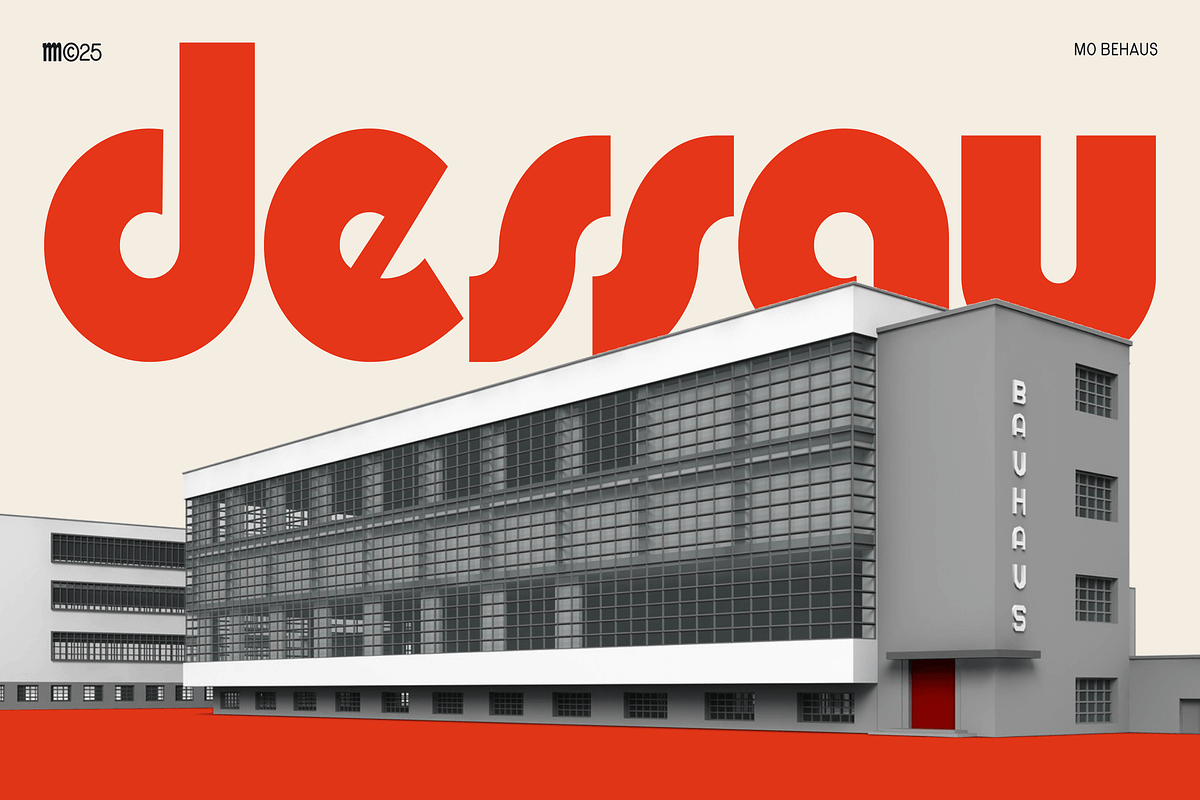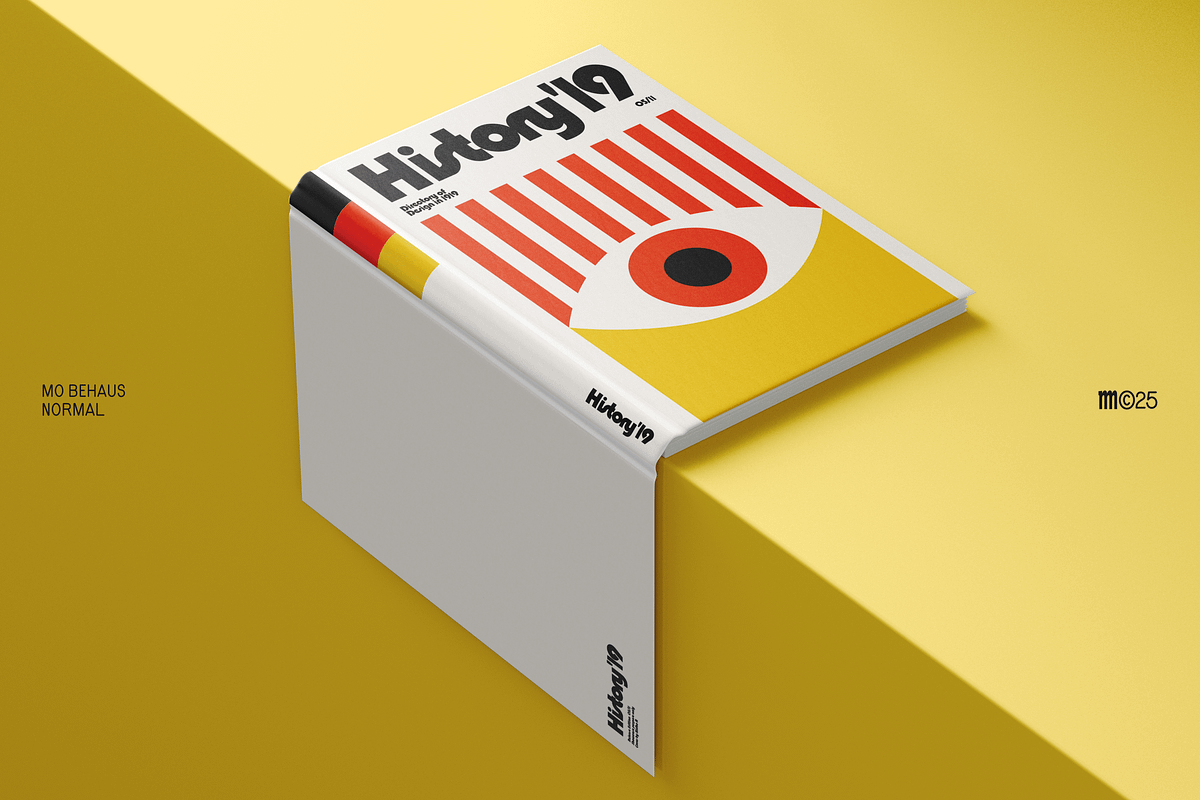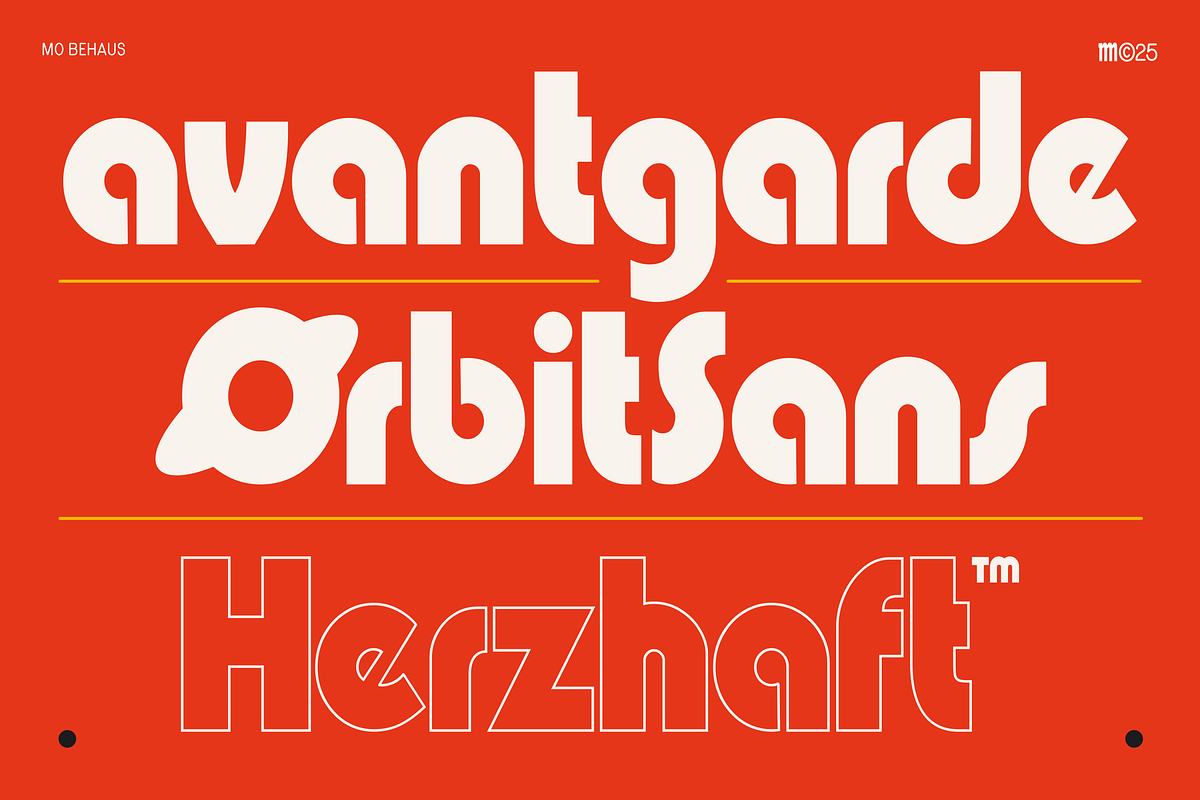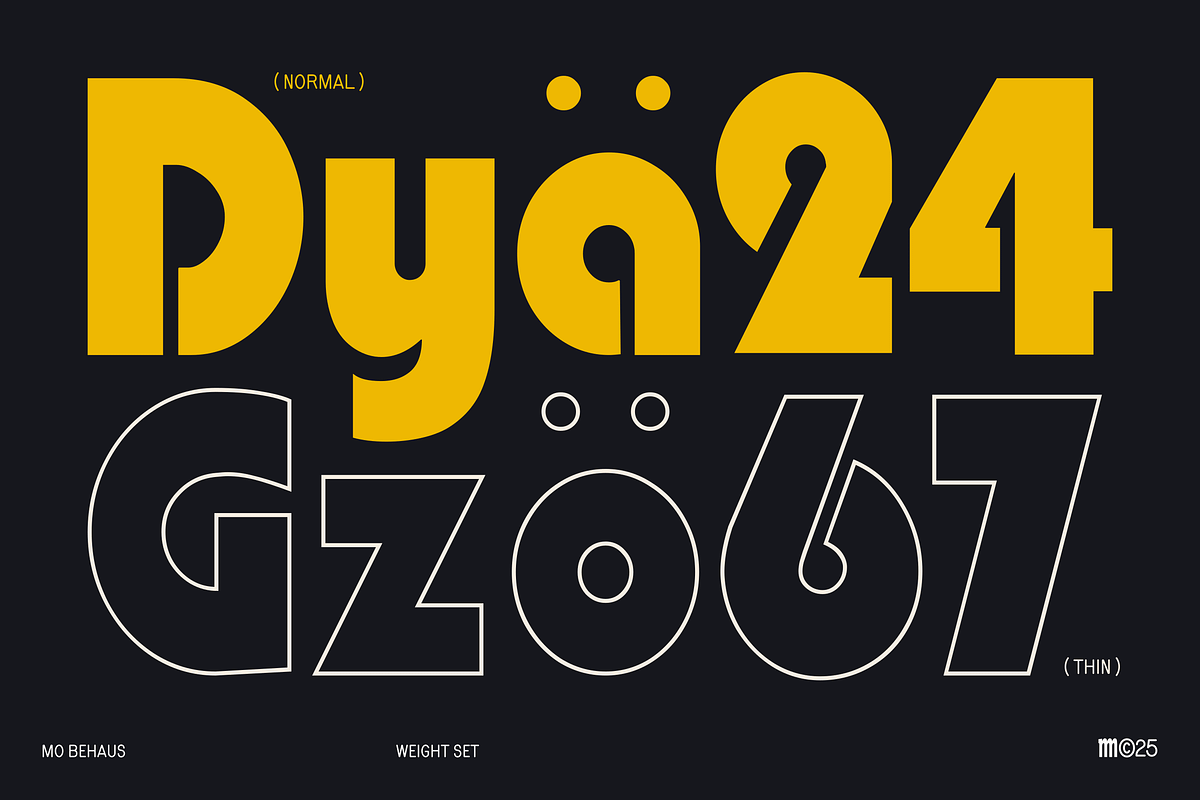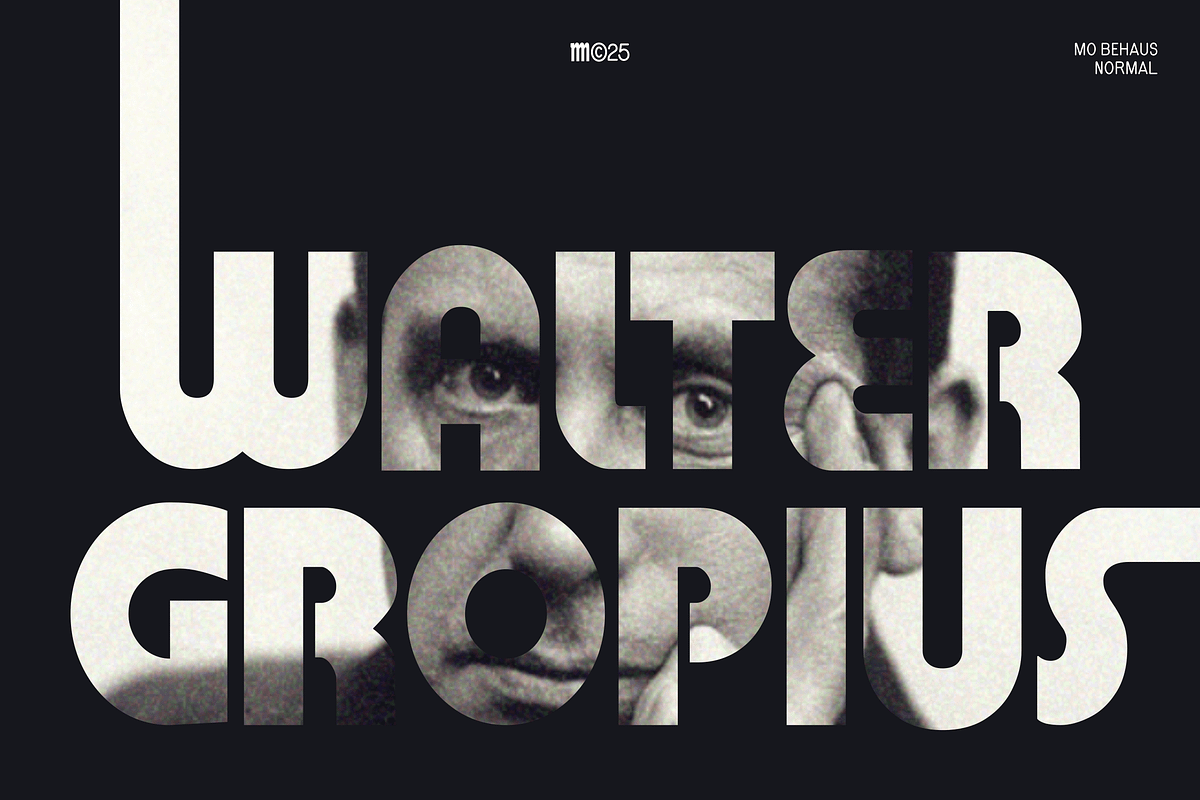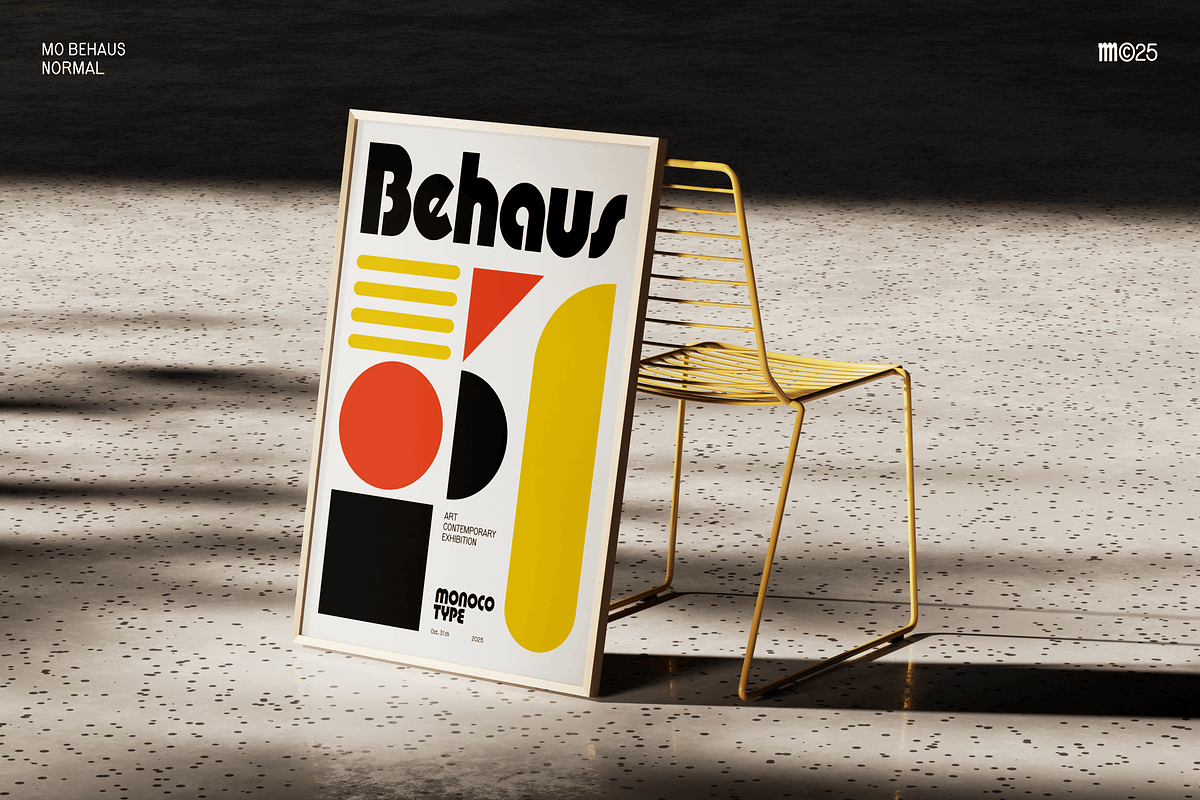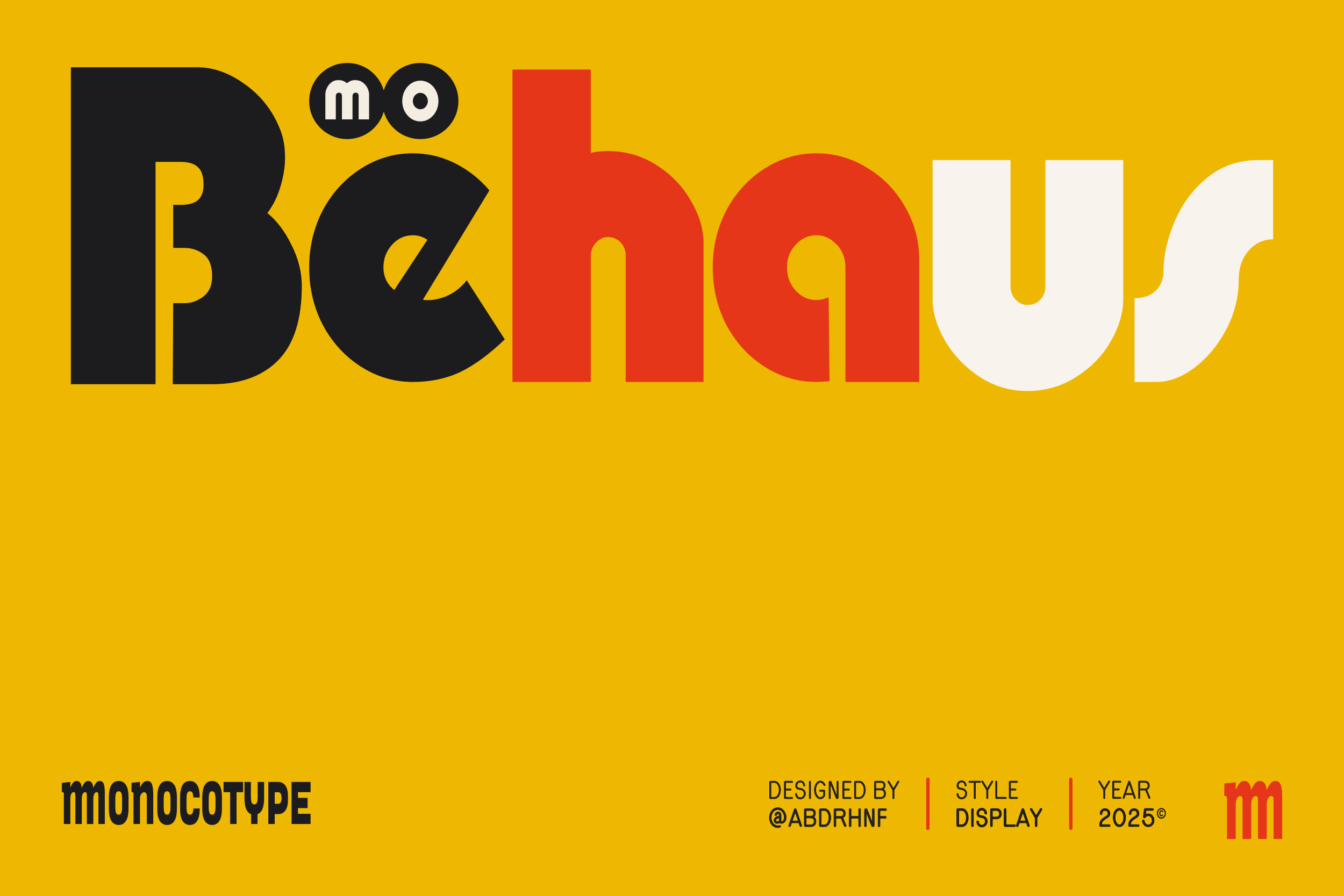
MO Behaus - Geometric Bauhaus Font
MO Behaus is a bold geometric display typeface inspired by the spirit of the Bauhaus movement. Built from strong modular shapes, circular forms, and playful curves, MO Behaus delivers impactful visual presence for any design that needs confidence, creativity, and modernist energy.
Designed for large-scale use, MO Behaus works perfectly in posters, branding, editorial layouts, packaging, contemporary art projects, and experimental typography compositions.
The family includes Solid (Normal) and Thin (Outline) styles for versatile contrast and dynamic visual pairings.
Geometric Bauhaus Construction Sharp modular shapes, circular forms, and clean geometry inspired by functional modernism.
Perfect for Display Typography Optimized for large headlines, posters, exhibition graphics, and expressive layouts.
Playful Retro–Modern Personality Smooth curves and distinctive forms that create strong visual identity.
Multilingual Support Covers Western European languages and essential accented characters (ä ö ü ß é è à ô, etc.).